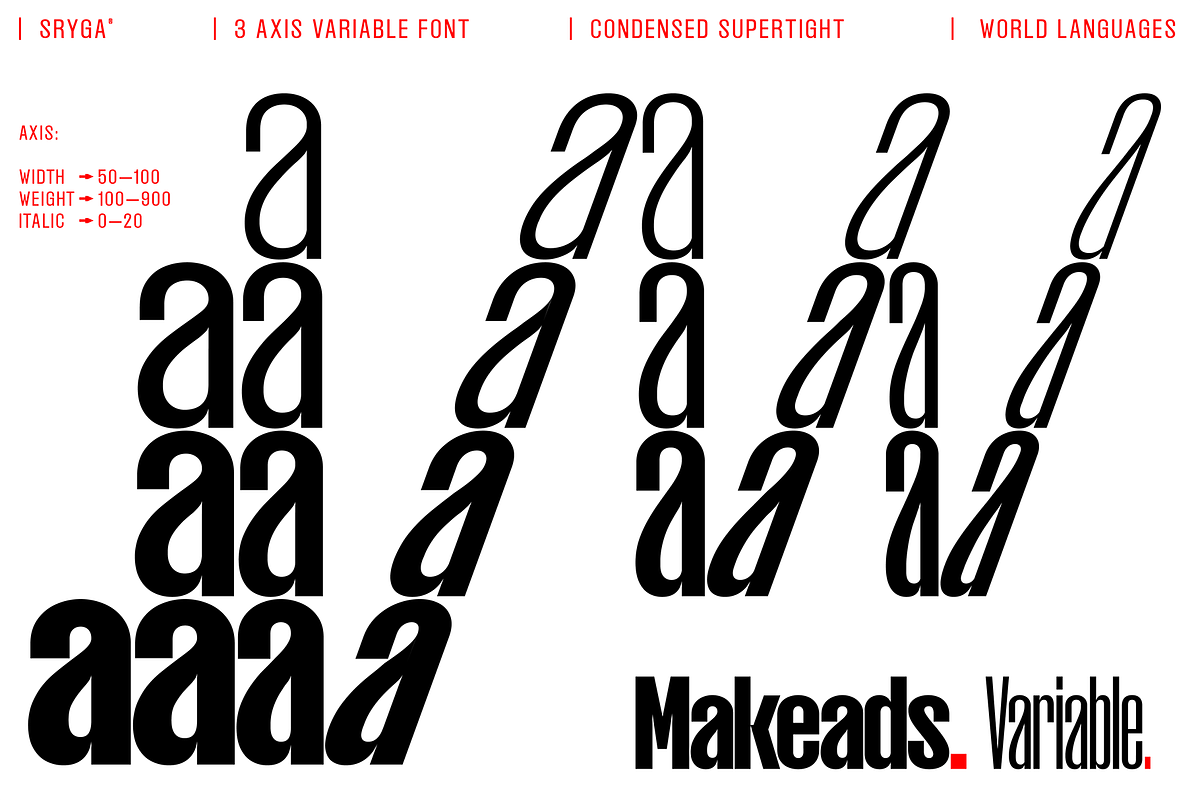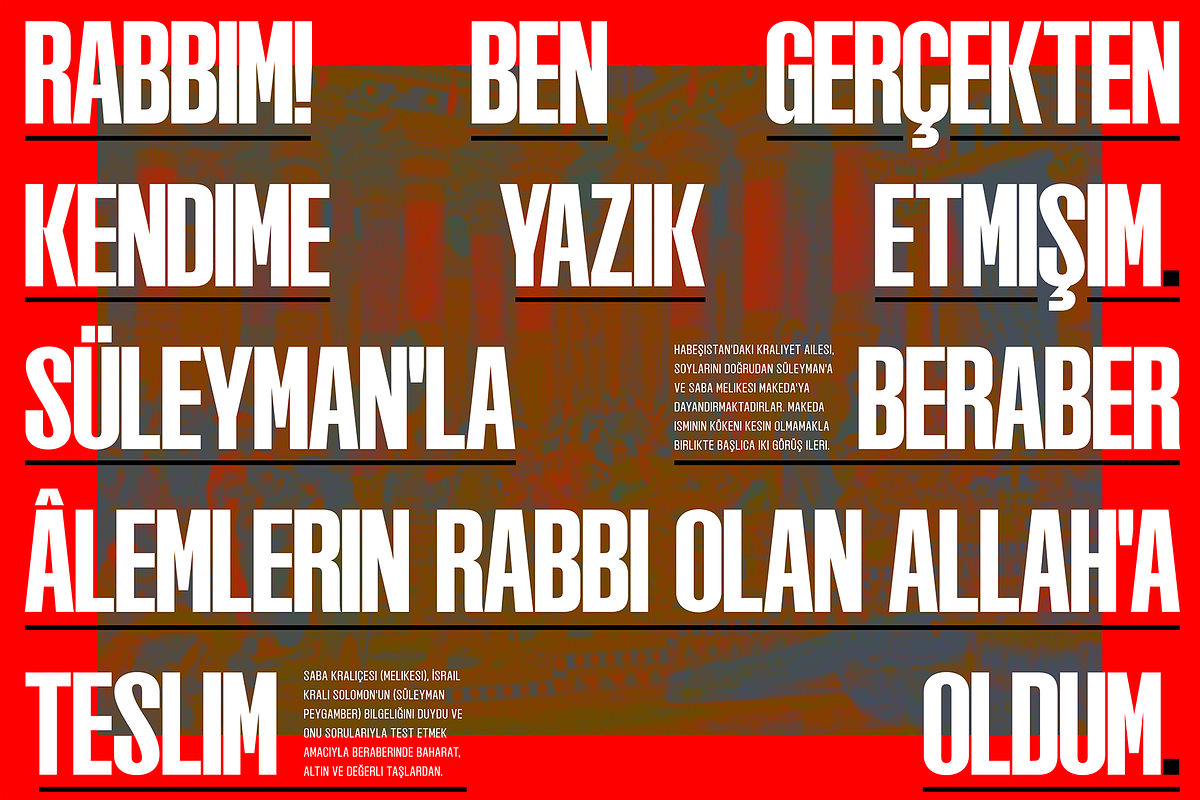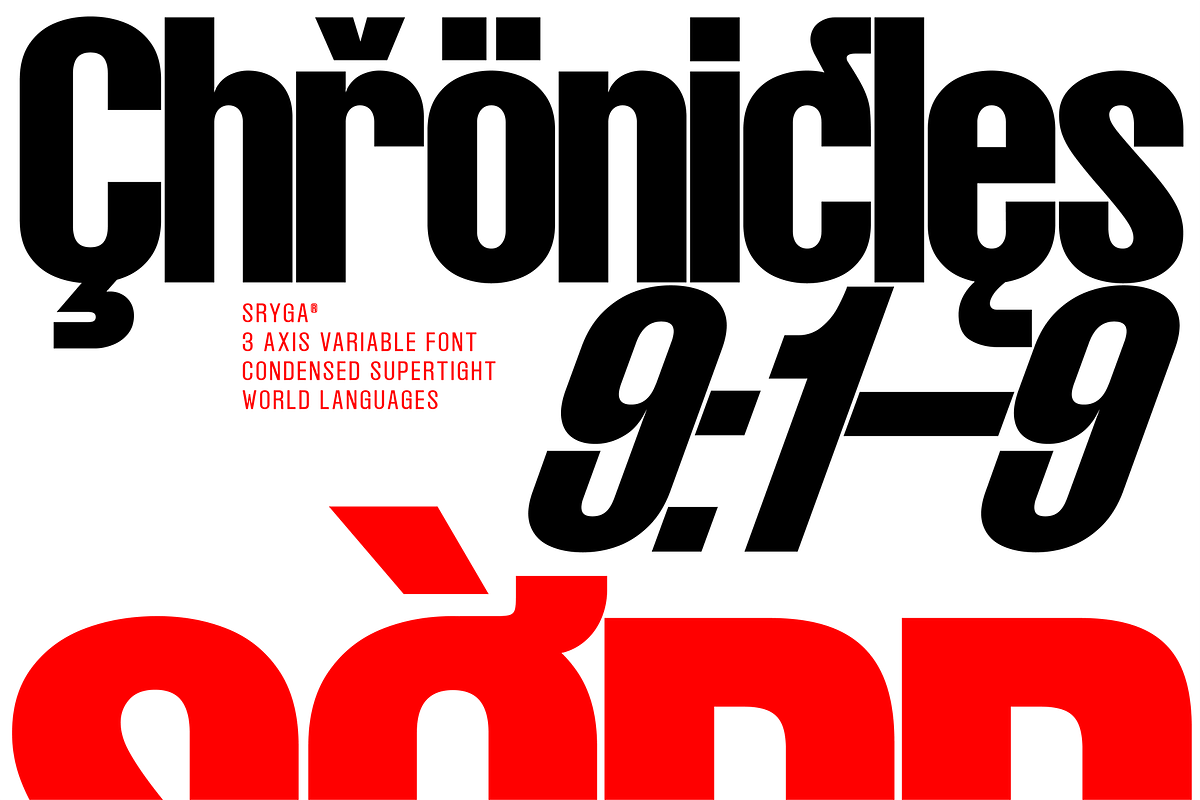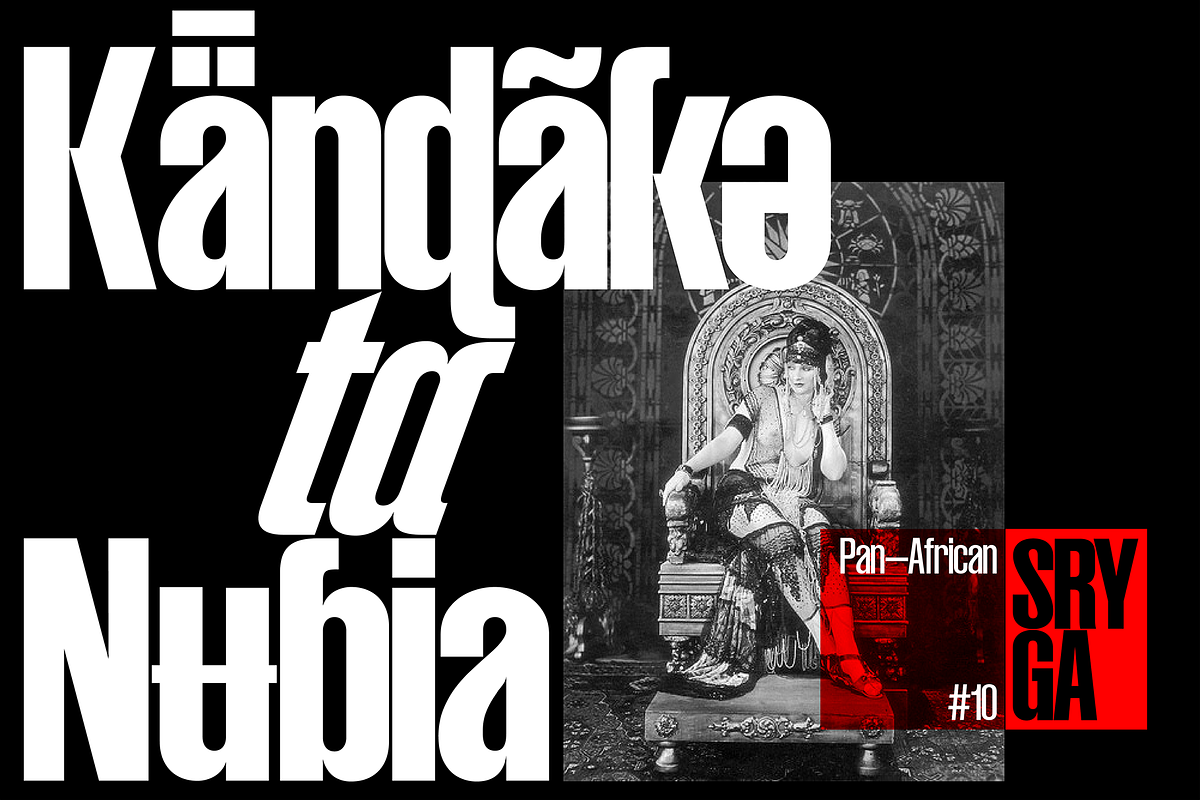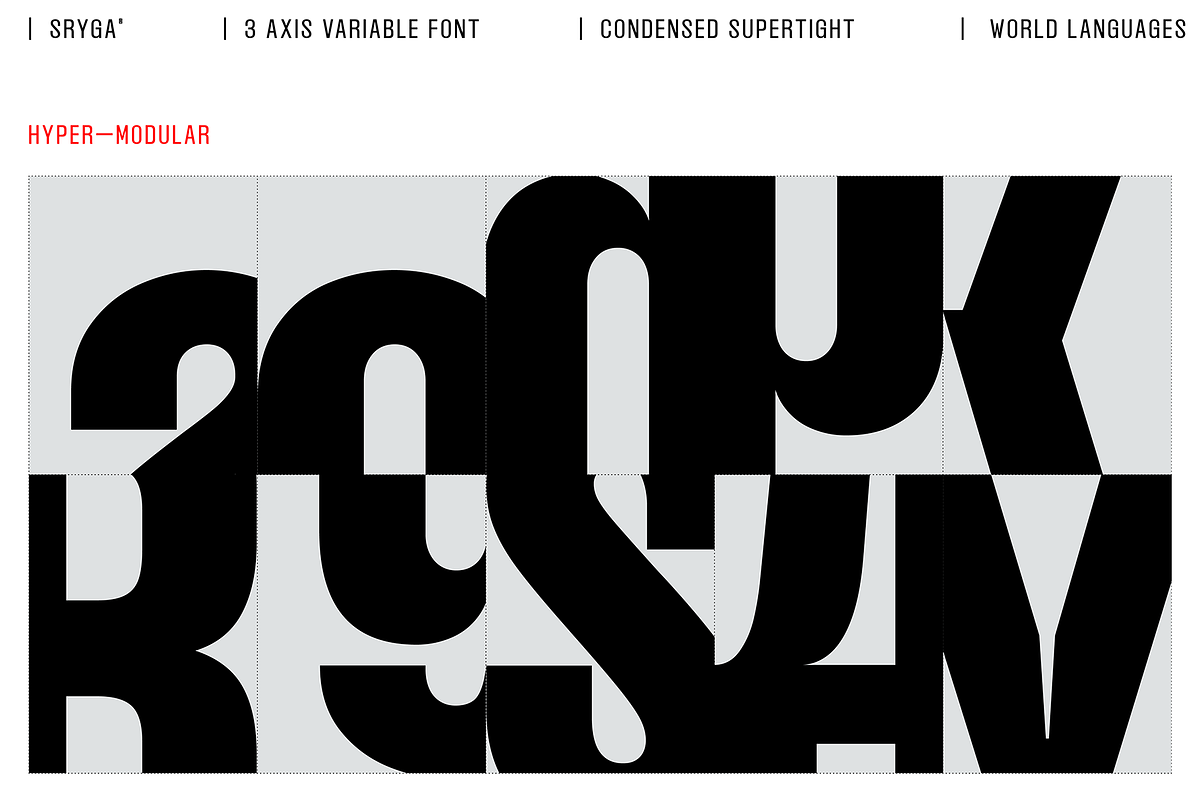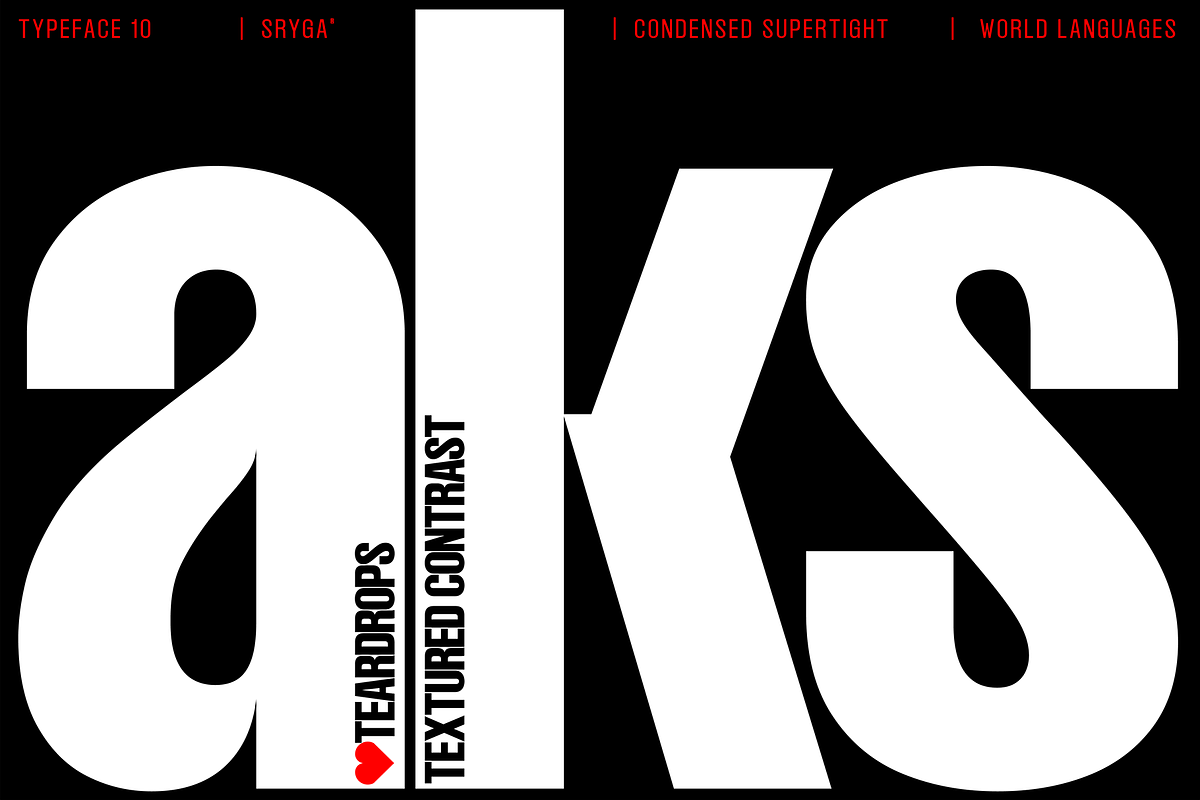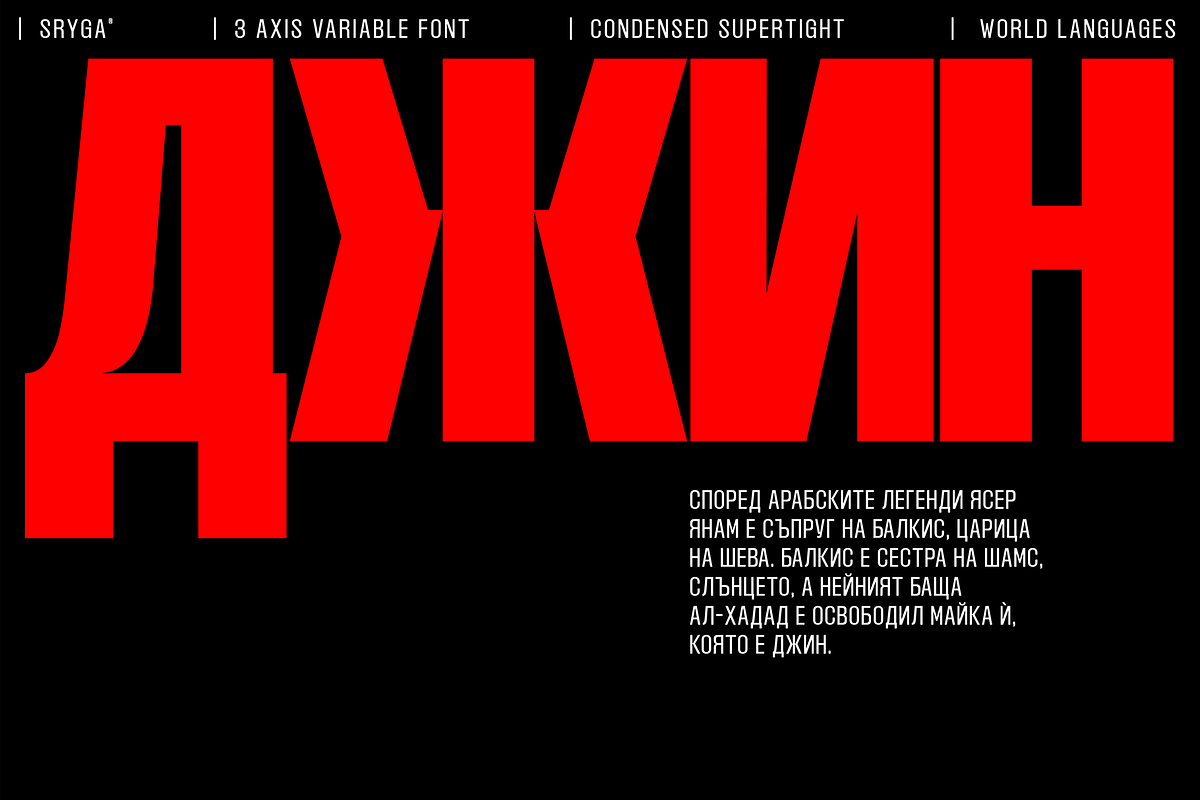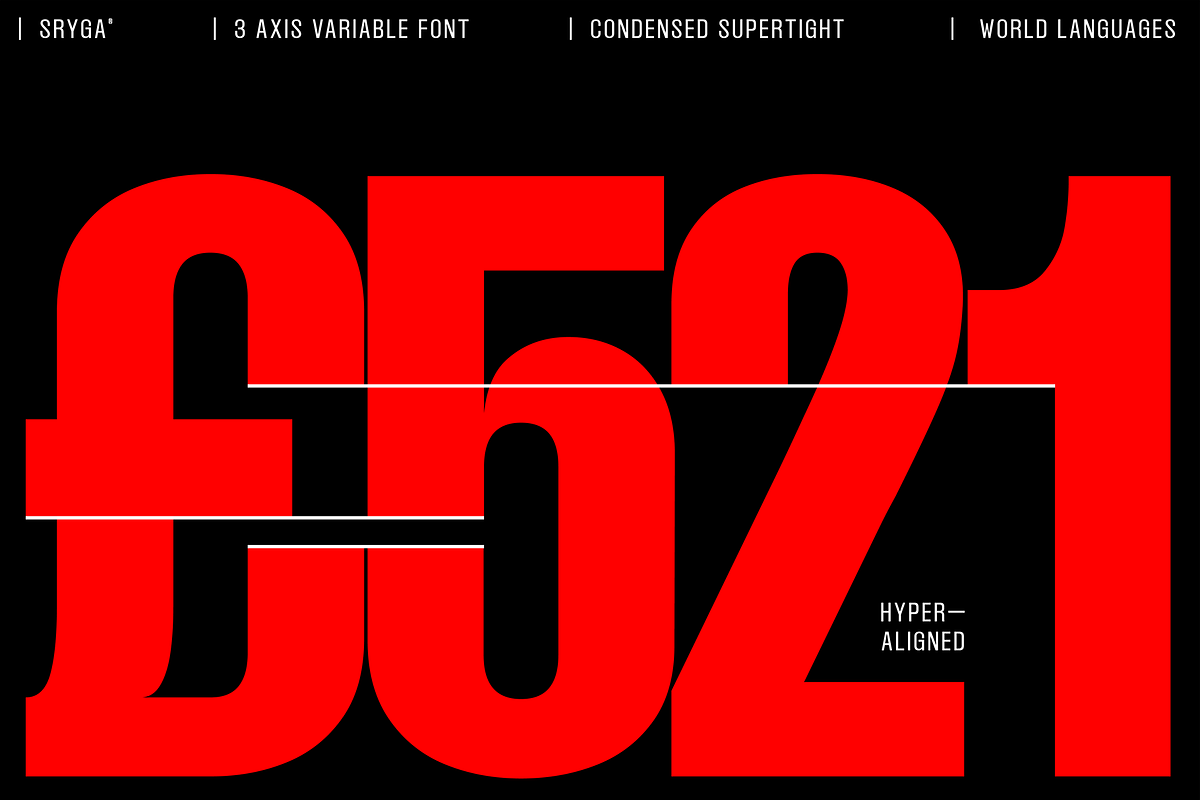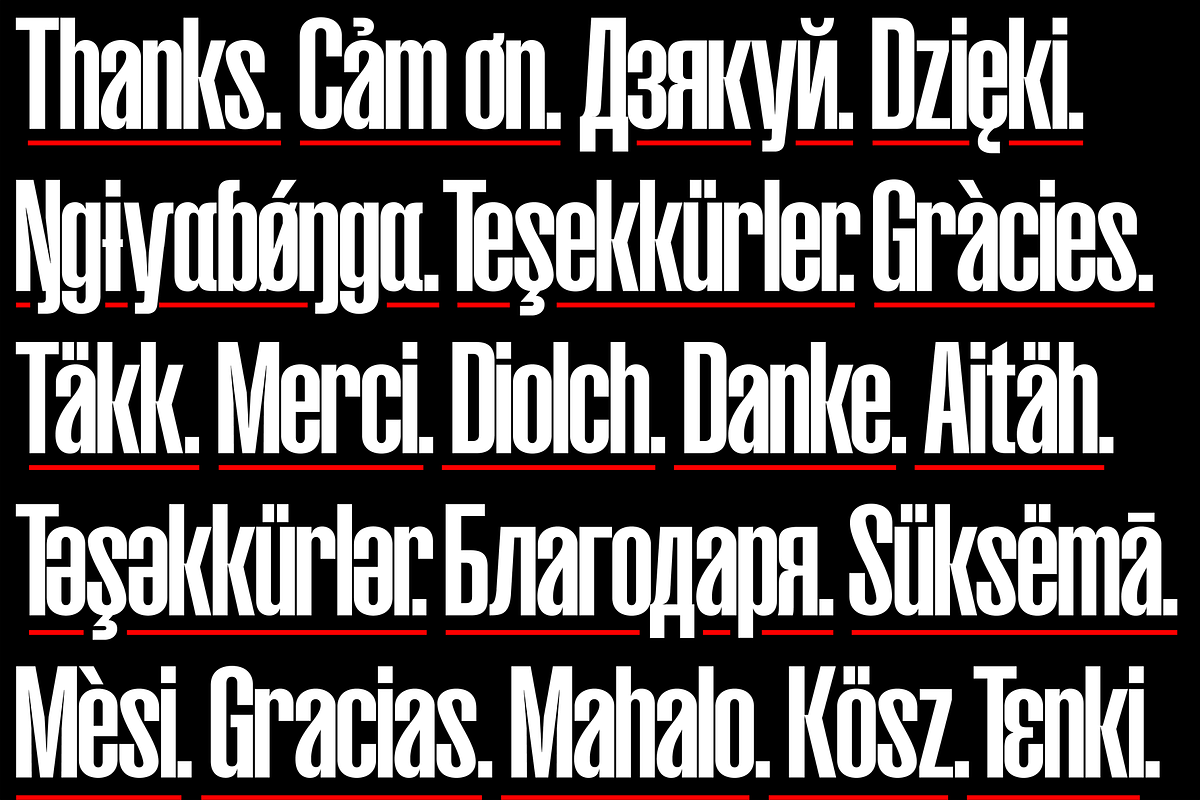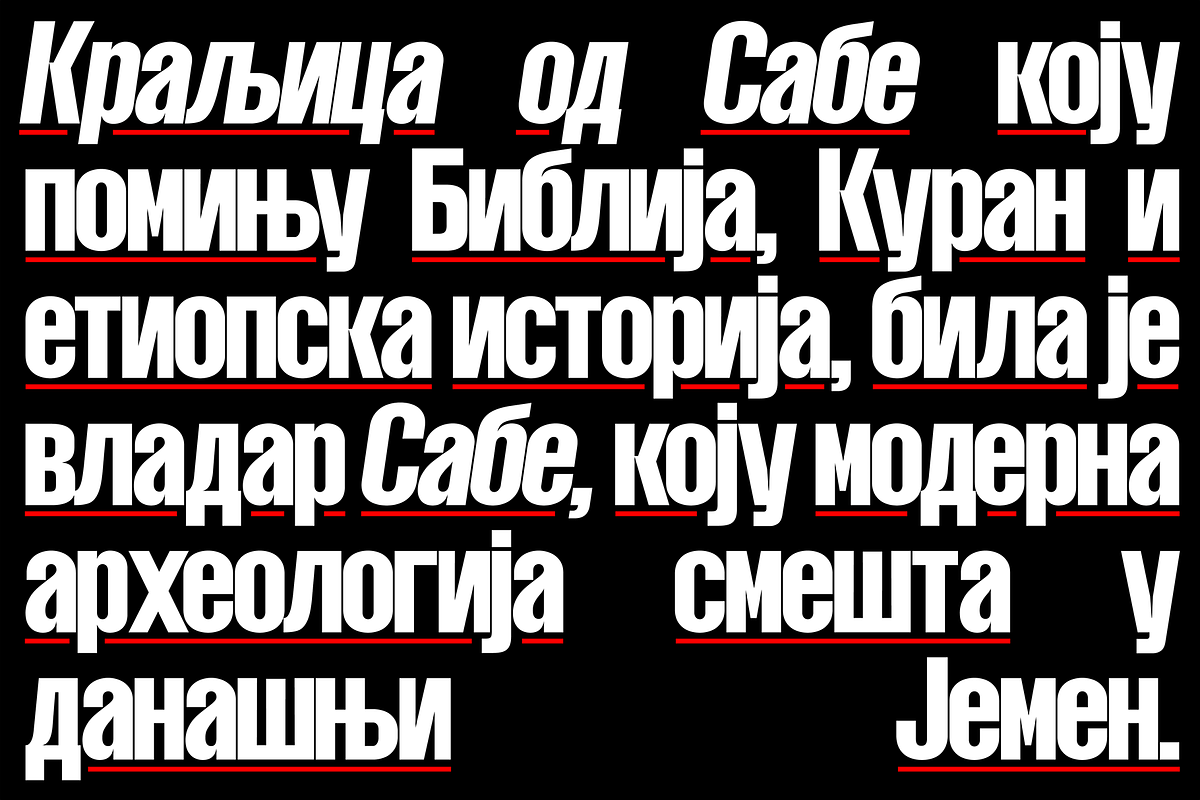
Makeads — Condensed Grotesk Font
Makeads, a typeface exuding subtle authority, brings a touch of seriousness to the creative palette. Rooted in the foundations of Bauhaus aesthetics, this font effortlessly balances boldness and sophistication. The supertight kerning and unique texture contrast strike an air of balance between formal and casual, making it an ideal choice for projects that demand a touch of gravitas. Makeads is the silent powerhouse that commands attention without raising its voice.